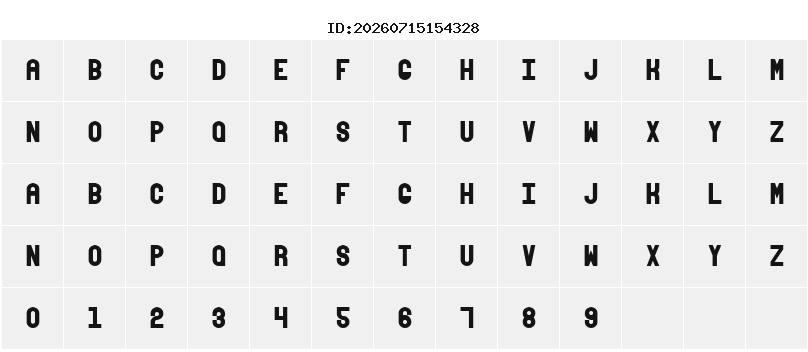
absender Preview
• Font Name: absender
• Font Style: regular
• Full Font Name: absender
• Designer: Nick Polifroni
About absender.ttf
absender.ttf is a modern, elegant sans-serif font designed for ultimate readability and visual harmony. Perfect for branding, headlines, web design, and print materials.